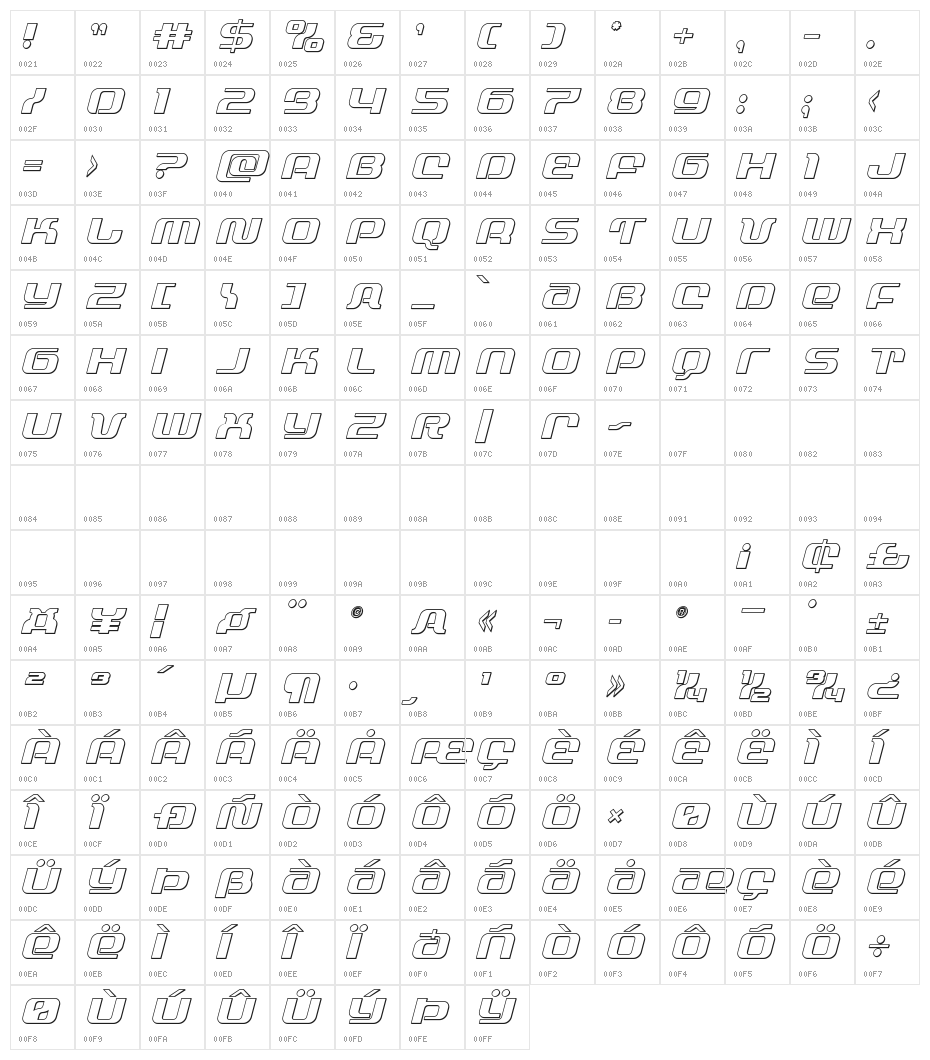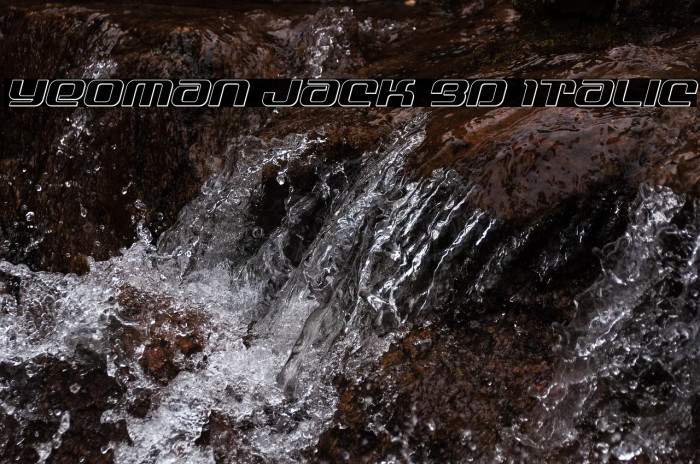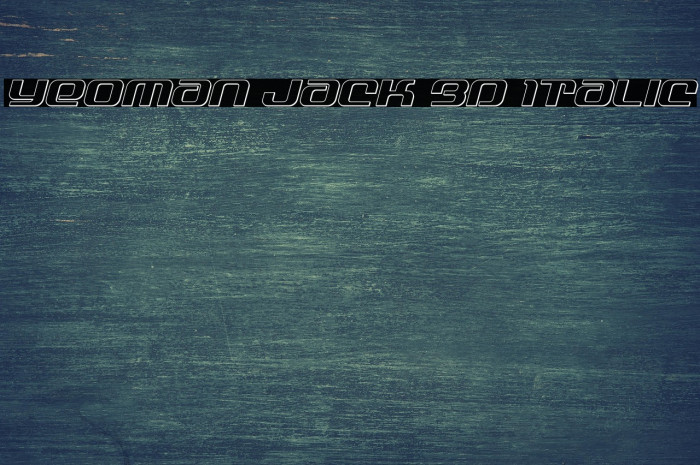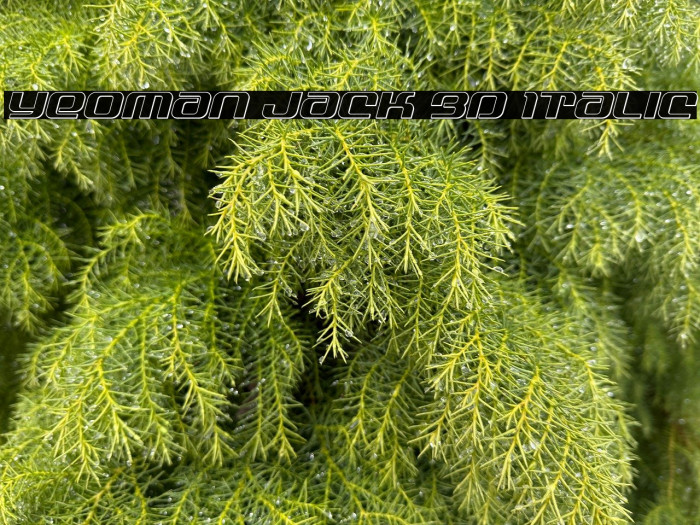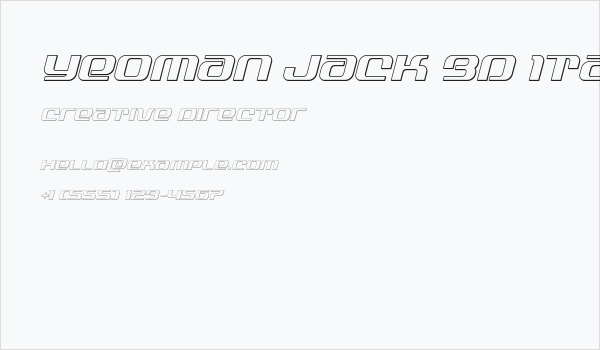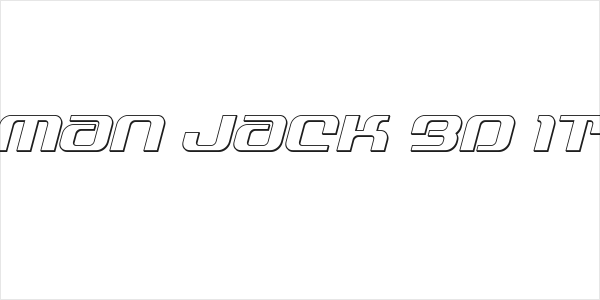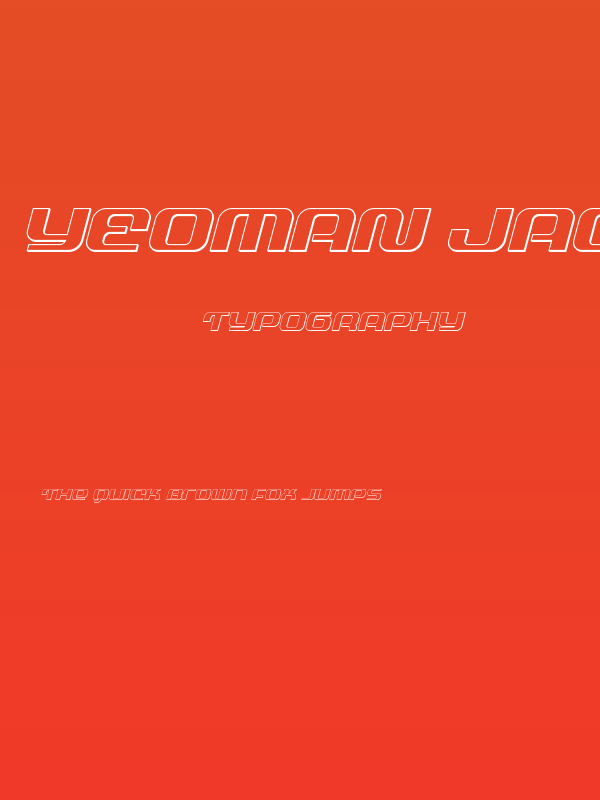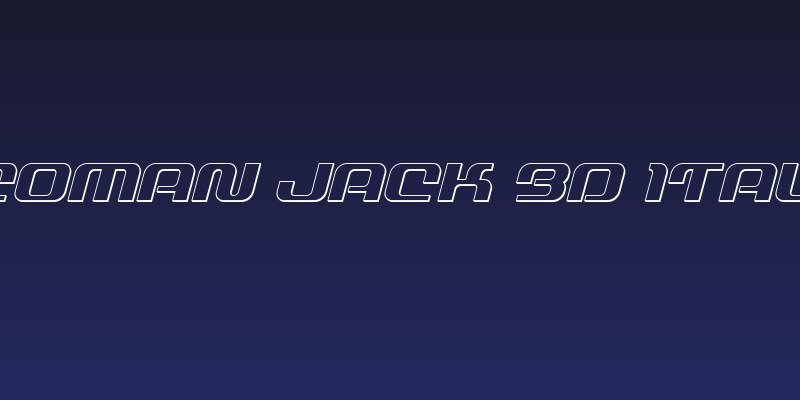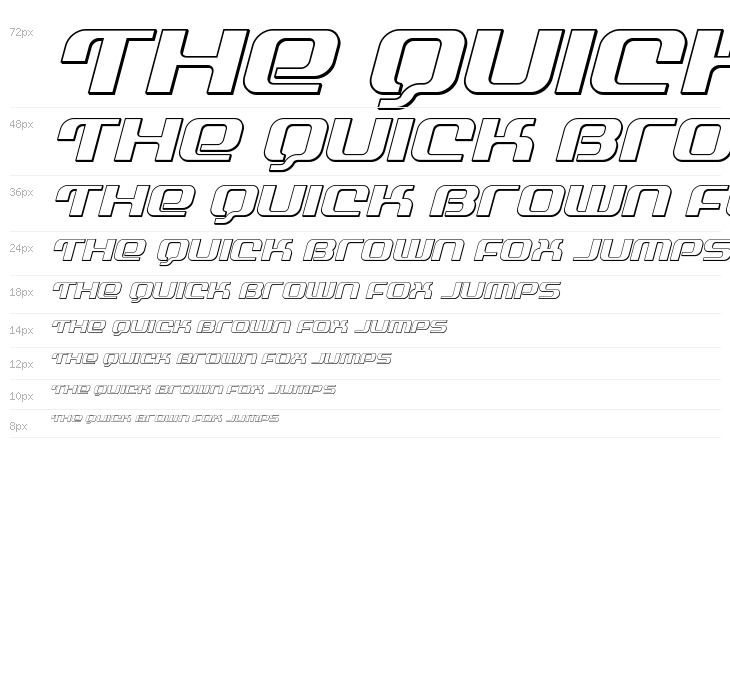
Yeoman Jack 3D Italic Font
Yeoman Jack 3D Italic Description
This font features a bold, three-dimensional outline style that gives a futuristic and dynamic appearance. The characters are italicized, adding a sense of motion and speed. Each letter and number is crafted with a consistent stroke width, creating a uniform and cohesive look. The design is clean and modern, with a slight geometric influence, making it suitable for attention-grabbing headlines and displays. The spacing between characters is normal, ensuring readability while maintaining its unique style. The font's 3D effect is achieved through a clever use of lines and angles, providing depth without overwhelming the viewer.
| Proposed Projects | Ideal for futuristic branding, tech-related projects, video game titles, and dynamic posters. |